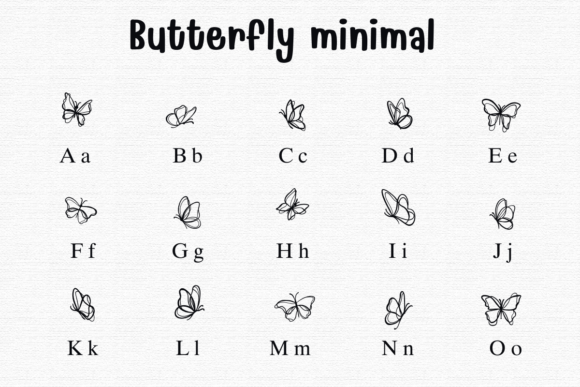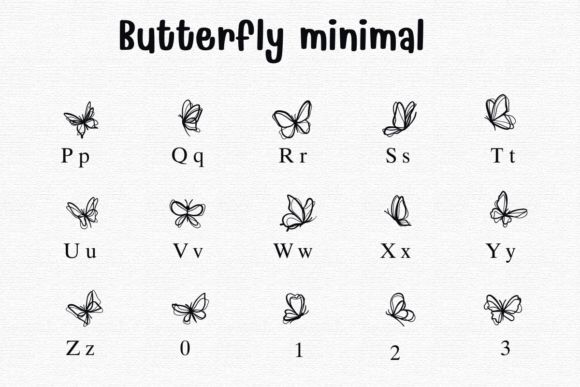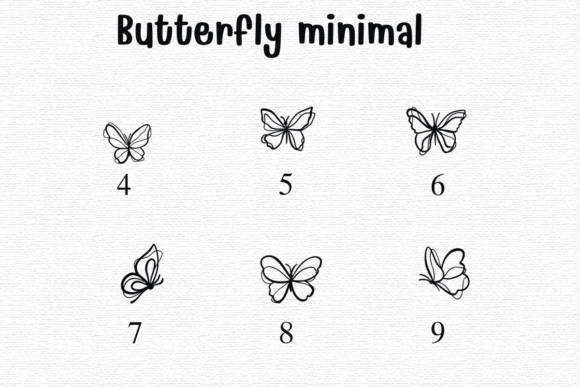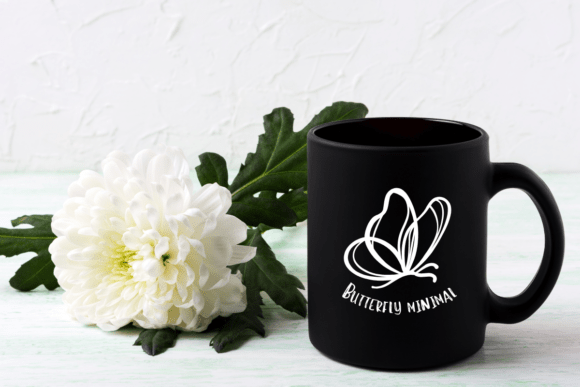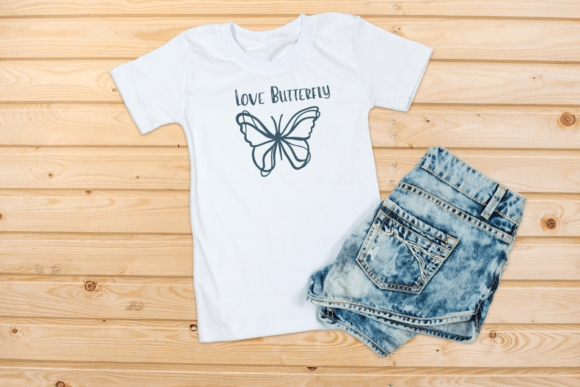
Introduction to Butterfly Minimal Font
Bring a touch of ethereal grace to your digital canvas with the Butterfly Minimal Dingbats font .
This is a collection of delicate, hand-drawn line art illustrations designed to flutter off the screen and into the hearts of your audience Each character in this Butterfly Minimal typeface has been meticulously crafted with a continuous line aesthetic, capturing the organic movement and fragile beauty of butterflies in various states of flight and rest.
Key Features of Butterfly Minimal Font
Why Choose Butterfly Minimal Font?
Butterfly Minimal Font offers exceptional quality and versatility, making it a valuable addition to your design toolkit. Whether you’re creating for personal projects or commercial use, Butterfly Minimal Font delivers professional results.